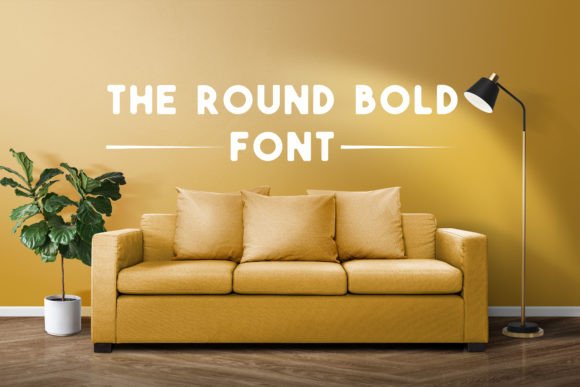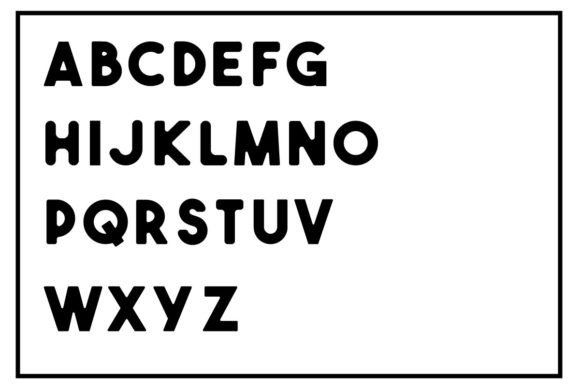
The Round Bold Font
What Is The Round Bold Font?
The Round Bold Font is a cool and assertive all-caps display typeface created to make a strong impression. Each letter has clean, bold lines and rounded shapes that feel modern and confident. Because of its striking design, this font is perfect for projects that need extra impact and clarity.
You will see how effortlessly The Round Bold adds energy and presence to your creations.
The Round Bold is a versatile font you can apply across many design contexts. For example, it’s perfect for logos and branding. The bold, clean style helps any brand look powerful and memorable.
In addition, it works beautifully for posters and headlines. Whether you design event promotions or advertising materials, this font grabs attention right away.
You can also use it for product packaging and labels. The assertive letters give everything a premium, modern look.
When you create website headers and banners, The Round Bold ensures your message stands out clearly and professionally.
Moreover, it’s great for t-shirts, social media graphics, signage, and any project where you need a statement piece.
Why Should You Choose The Round Bold Font?
There are plenty of reasons to consider The Round Bold for your next project. First, it’s easy to read in all sizes. Whether you use large headlines or smaller subheadings, every letter remains clear and impactful.
Also, The Round Bold pairs well with minimal sans-serif or serif fonts. This allows you to create balanced layouts that feel cohesive and polished.
Because it’s an all-caps typeface, it ensures consistency and a strong visual hierarchy in your text.
Designers appreciate that it looks polished right out of the box, saving time while delivering professional results.
The Round Bold Font brings confidence and clarity to every project. For example, when you want your designs to feel bold and modern, this font makes it easy.
Even minimalist layouts look more dynamic with The Round Bold’s clean, powerful letterforms. Whether you create branding, posters, or social media content, your work will stand out.
Using a premium display font also shows your attention to detail and commitment to quality. This builds trust with your audience and makes your designs more memorable.
The Round Bold Font is more than just a typeface—it’s a creative tool that helps you share ideas with strength and style. From logos and headlines to packaging and banners, this font adapts easily and leaves a lasting impact.